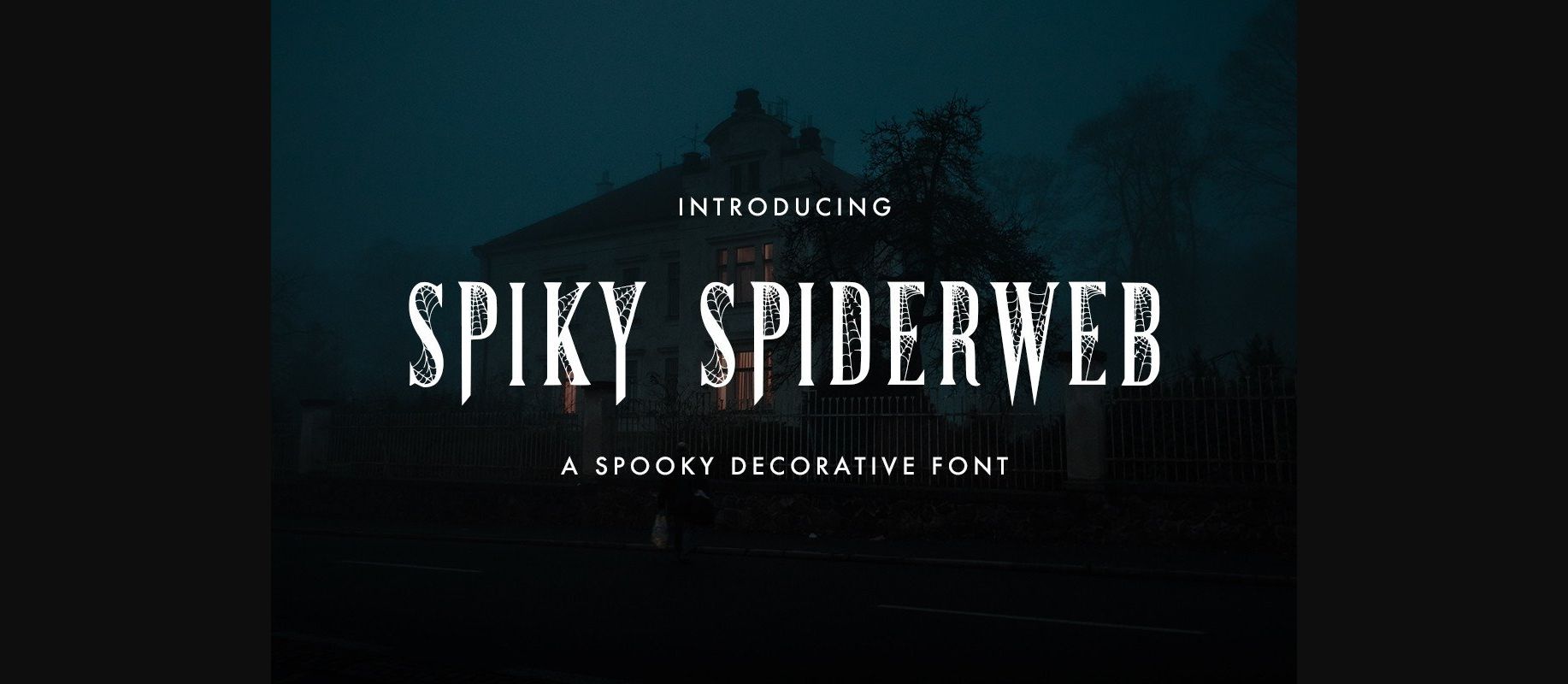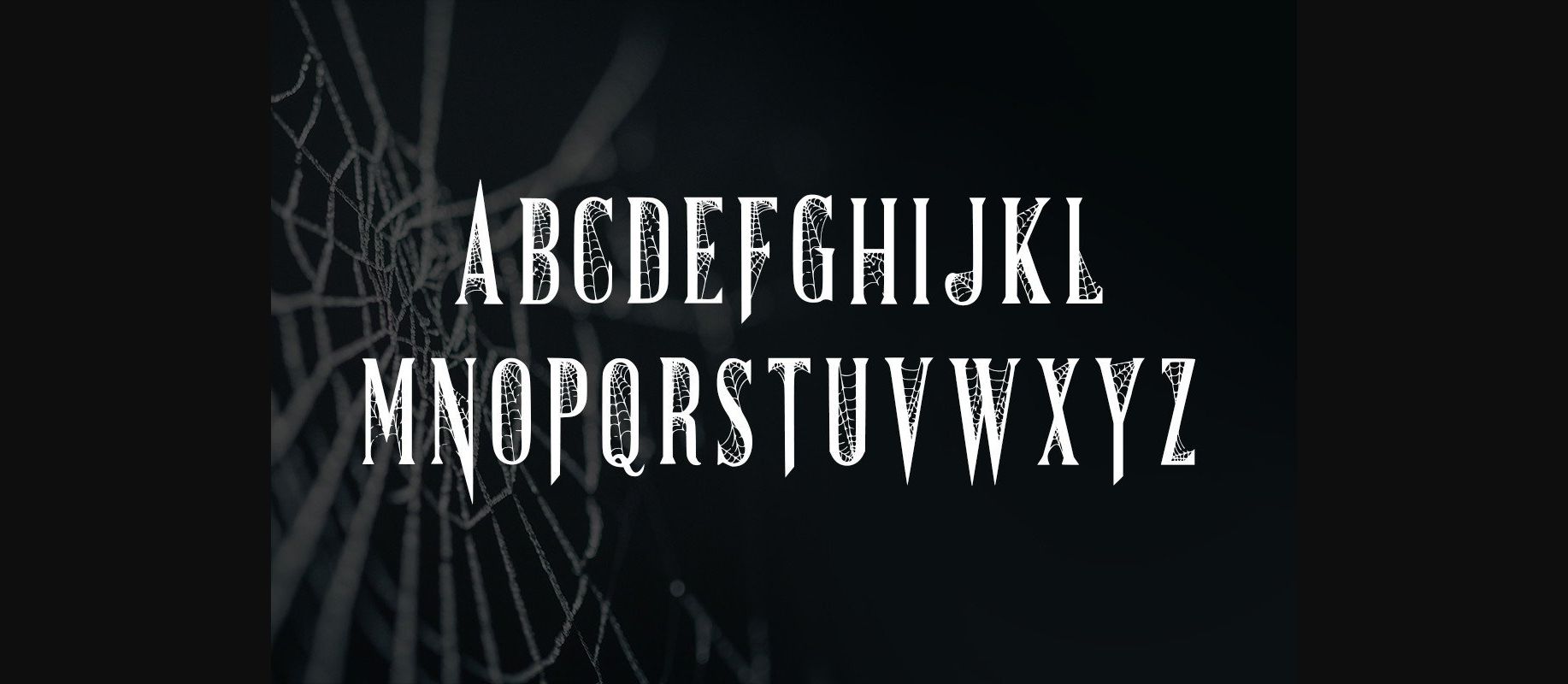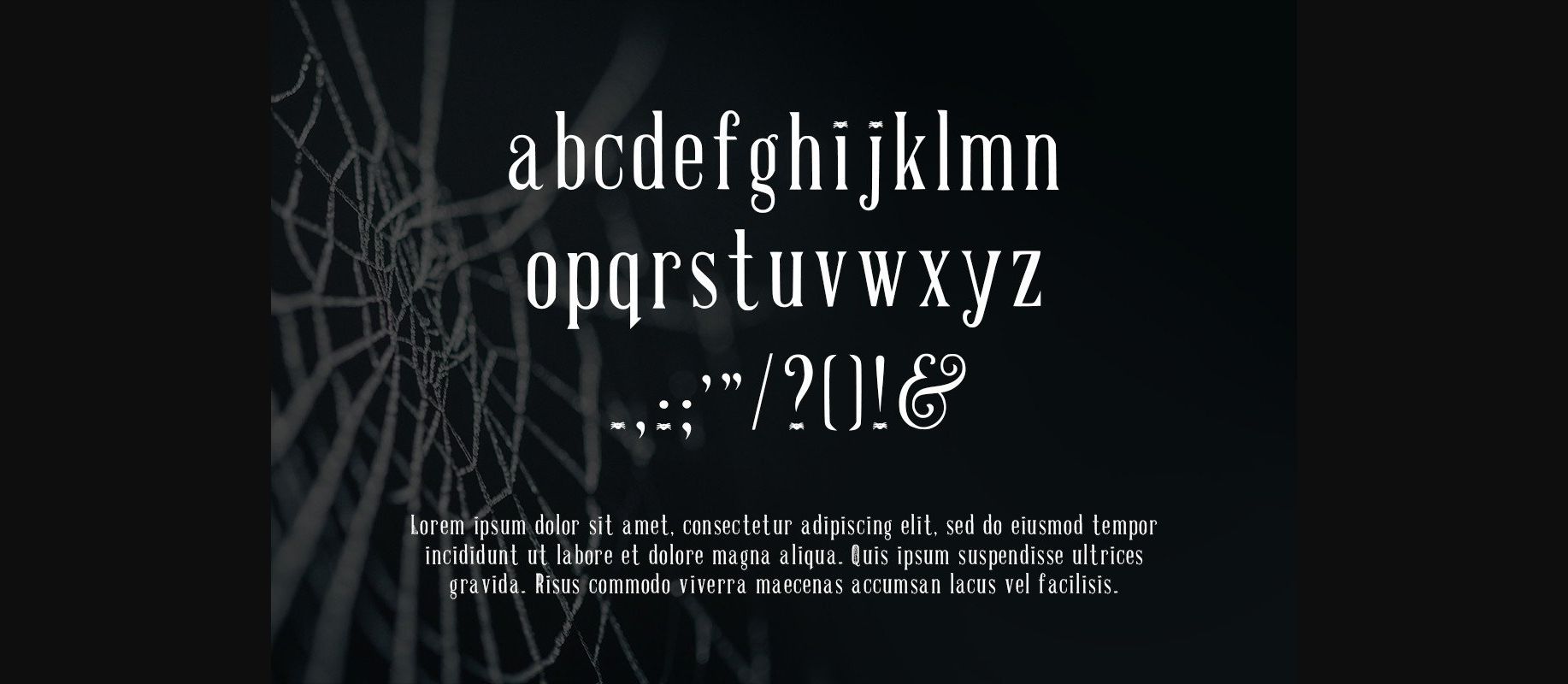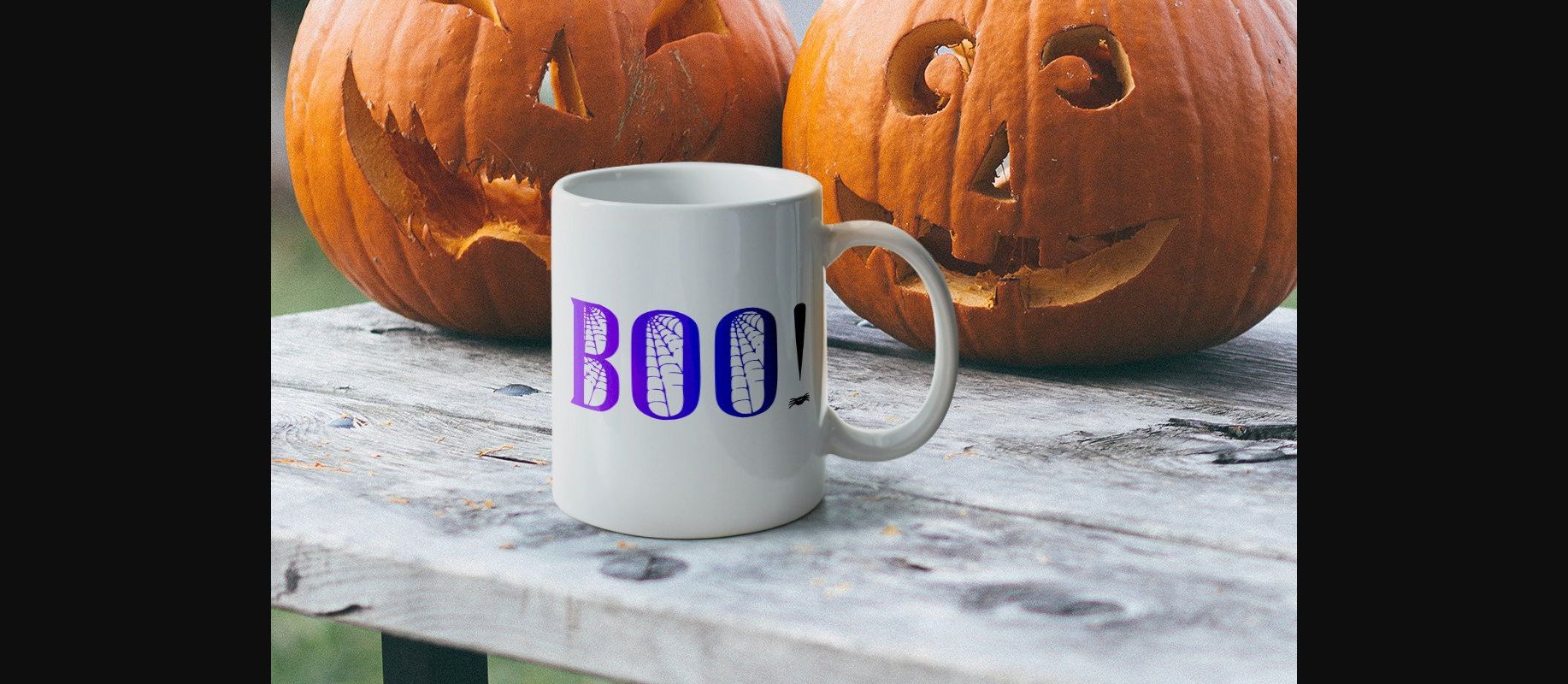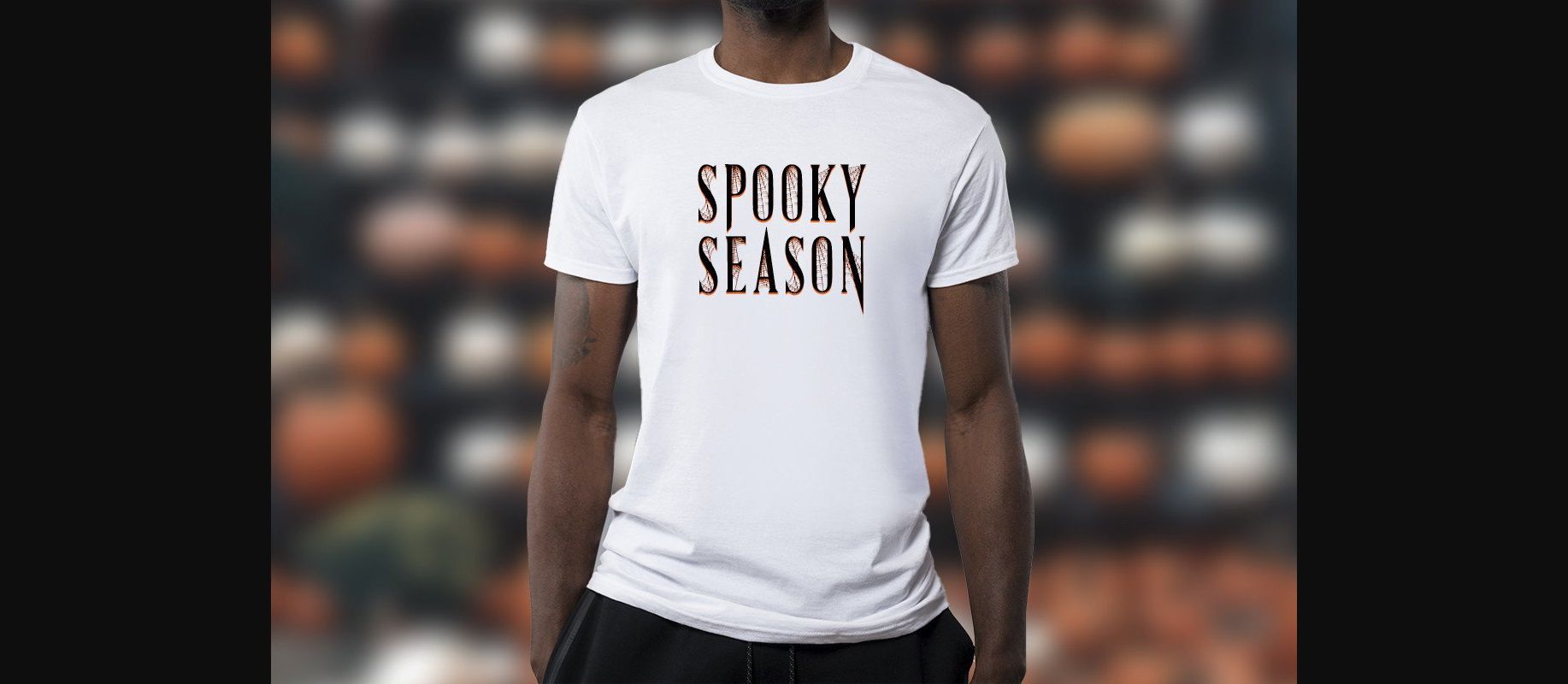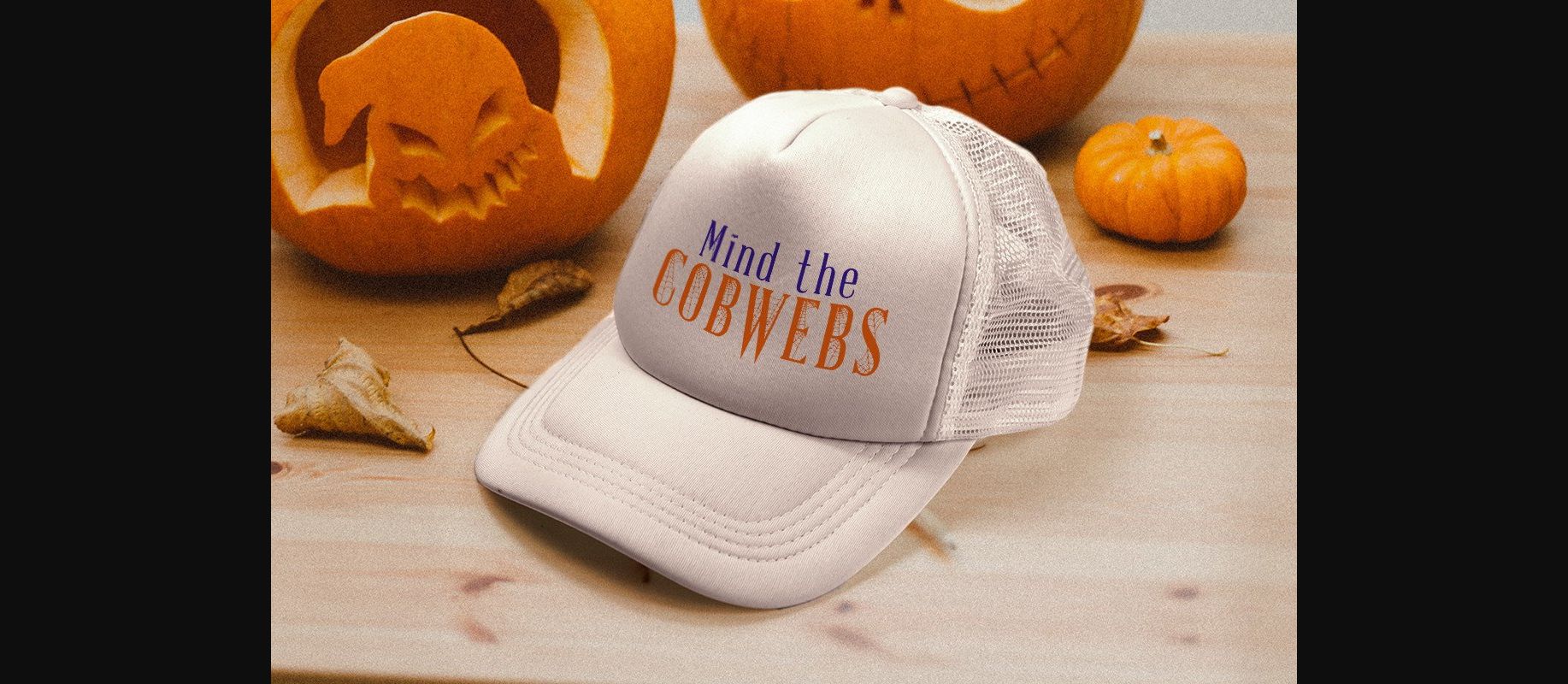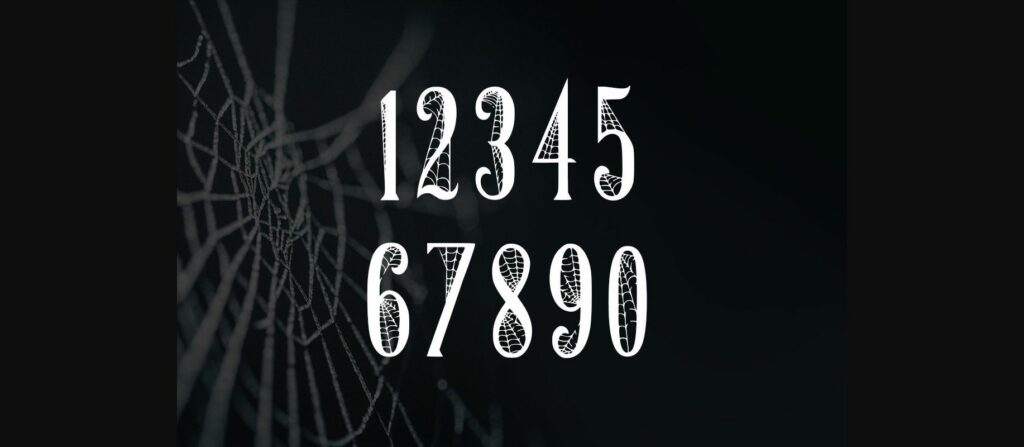
Spiky Spiderweb Font
About Spiky Spiderweb Font
Spiky Spiderweb is a spooky, decorative serif font. Its condensed style and sharp edges give it a dangerous look and will work perfectly for any Halloween signs that tell party-goers to beware! Print your own decor or use this font to design hats, t-shirts, mugs, or whatever you can think of. The cobwebs on the capitals give it just enough of a designed element to be unique.